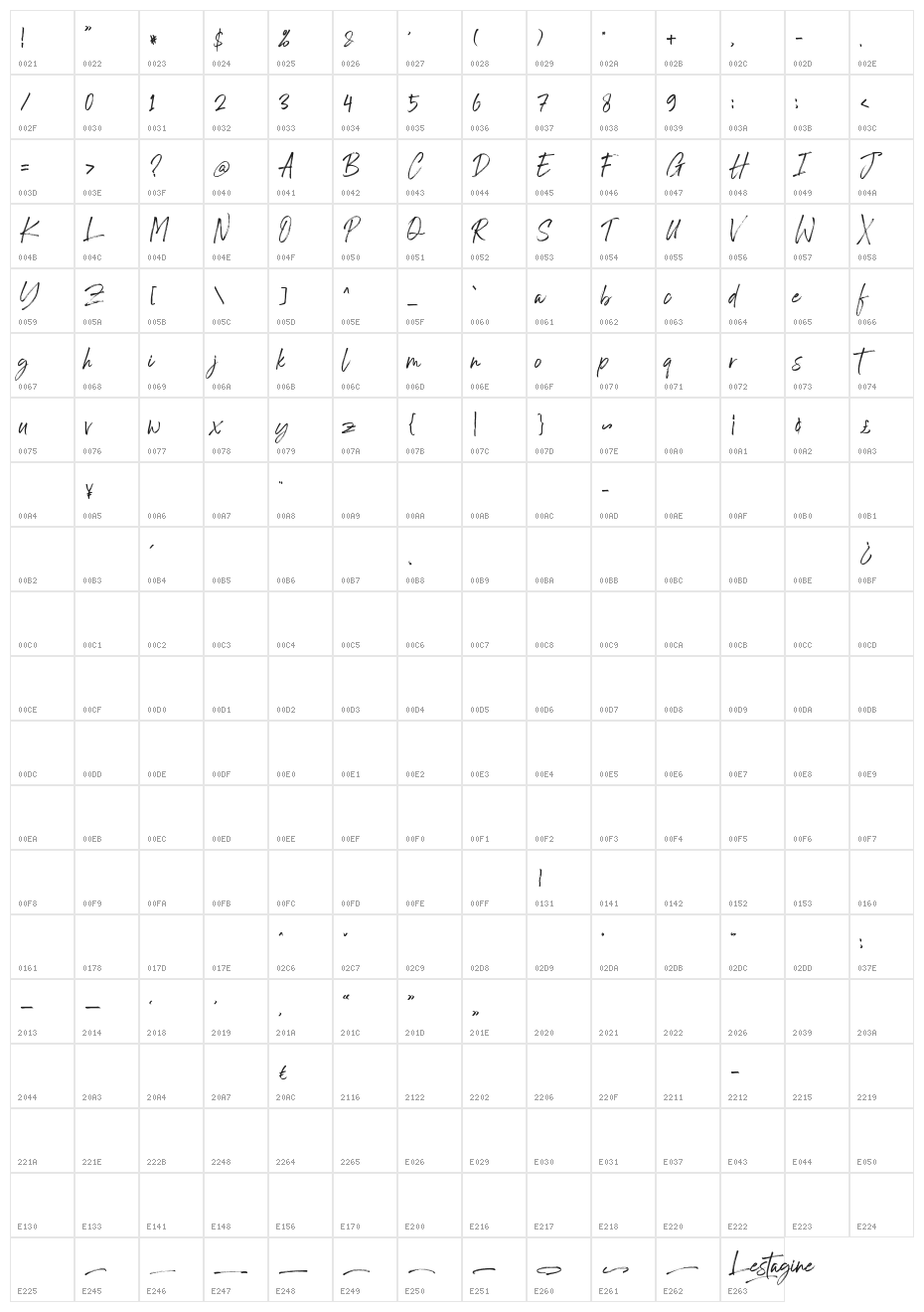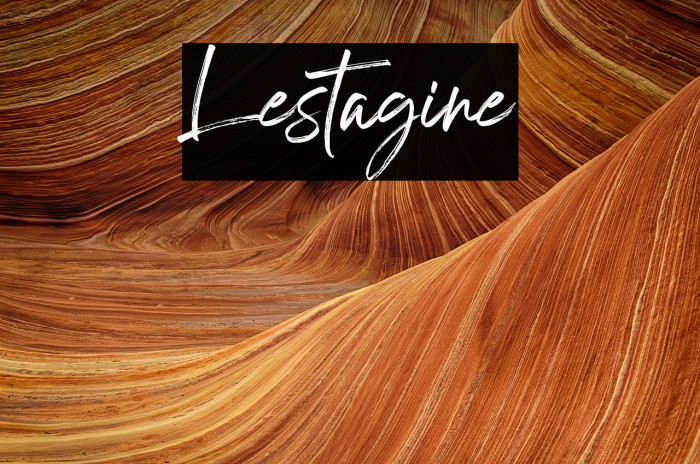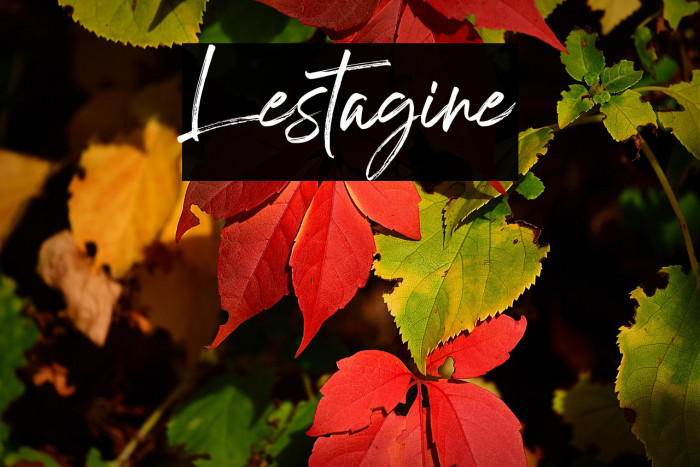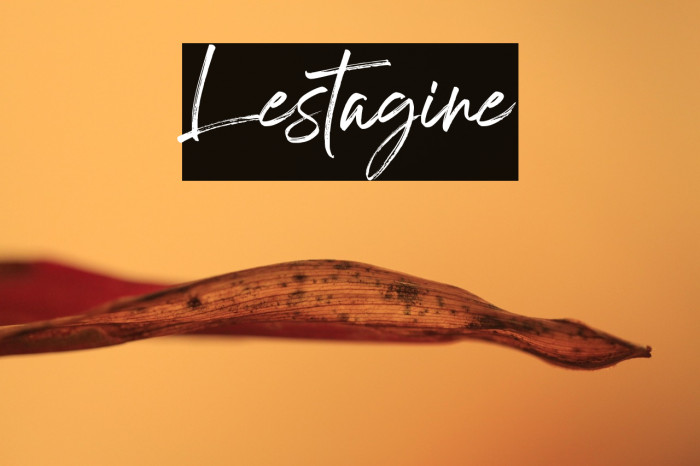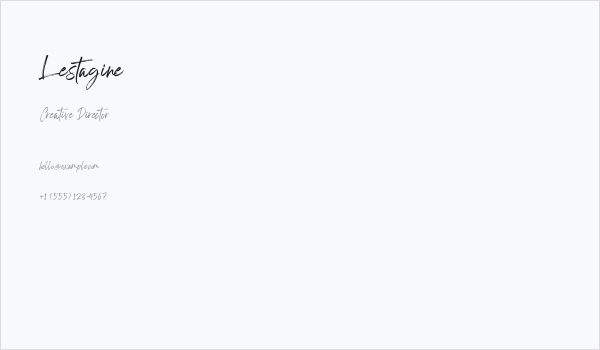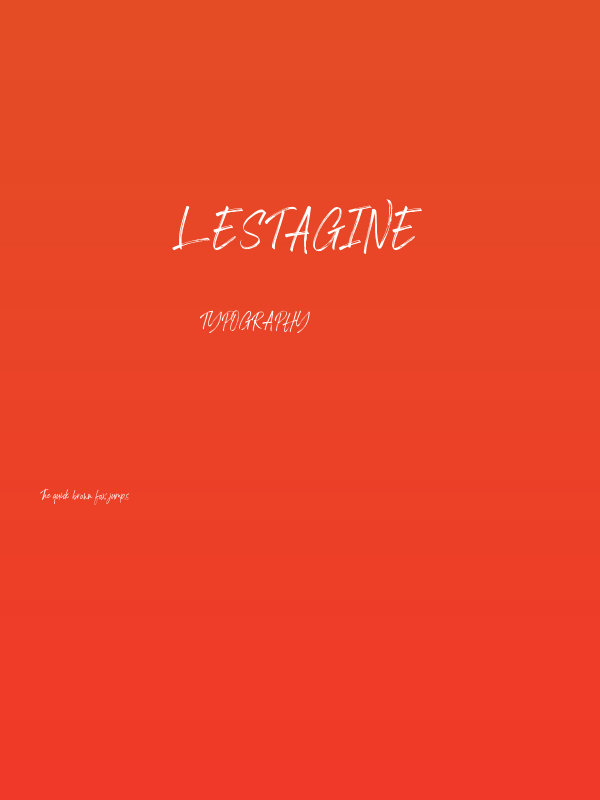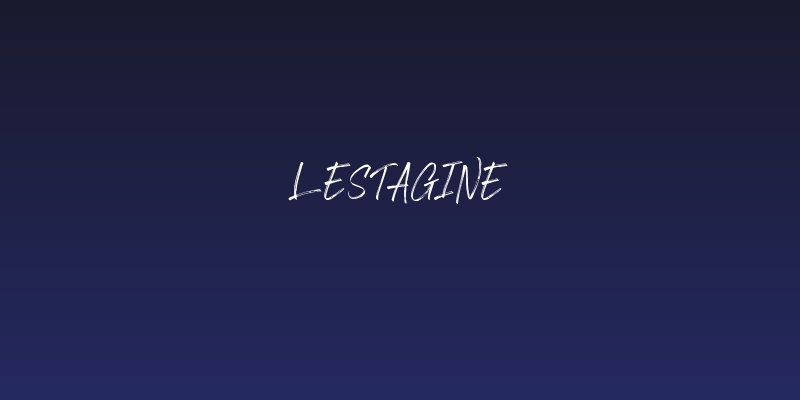
Lestagine Font
Lestagine Description
This font exudes a dynamic and expressive style, characterized by its brush-like strokes and fluid, handwritten appearance. The uppercase letters are bold and slightly slanted, giving a sense of motion and energy. The lowercase letters maintain a consistent flow, with some characters featuring unique loops and curves that add to the font's artistic flair. Numbers are equally expressive, with a playful yet legible design. Special characters are crafted with the same attention to detail, ensuring they blend seamlessly with the overall style. This font is perfect for projects that require a personal touch or a creative edge.